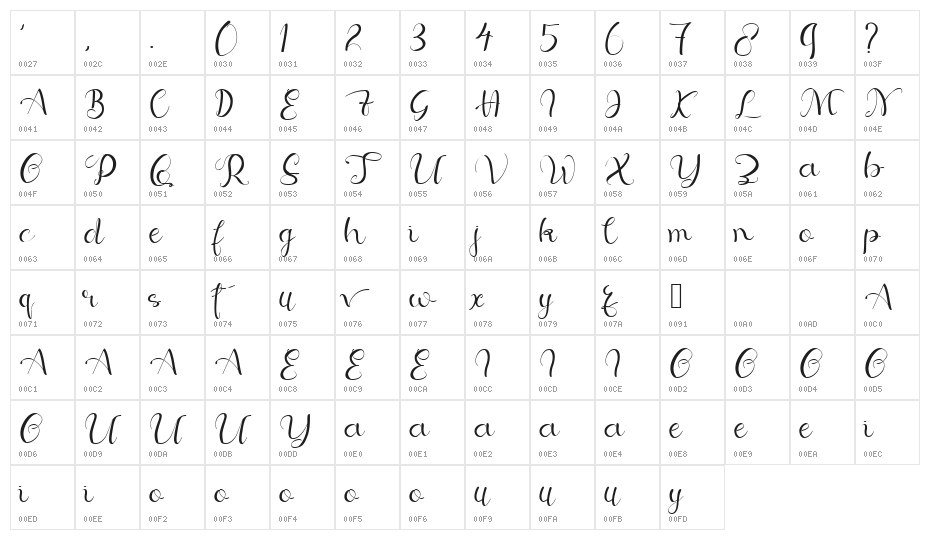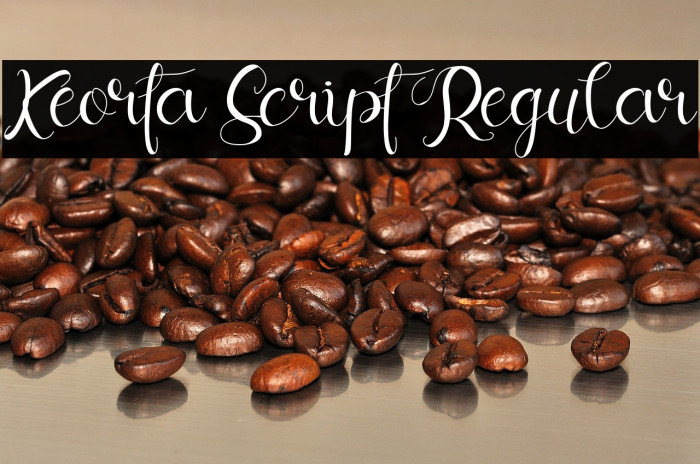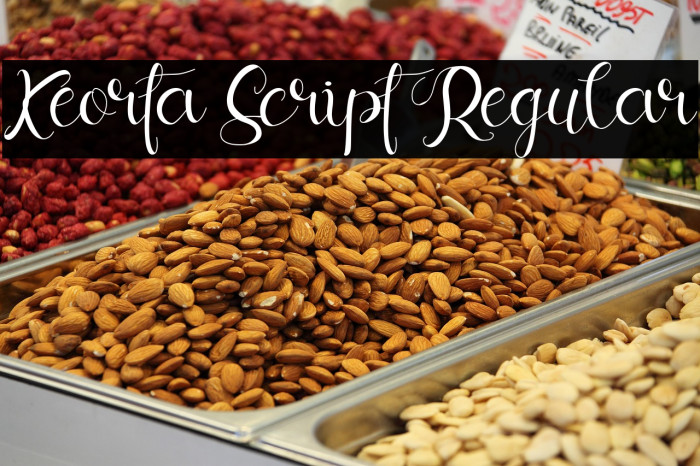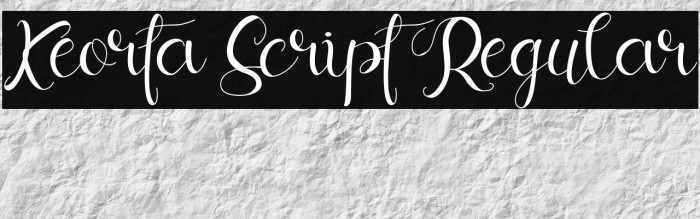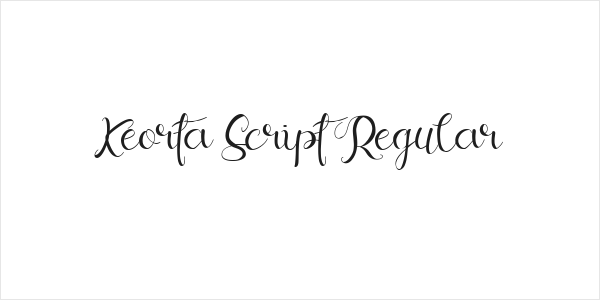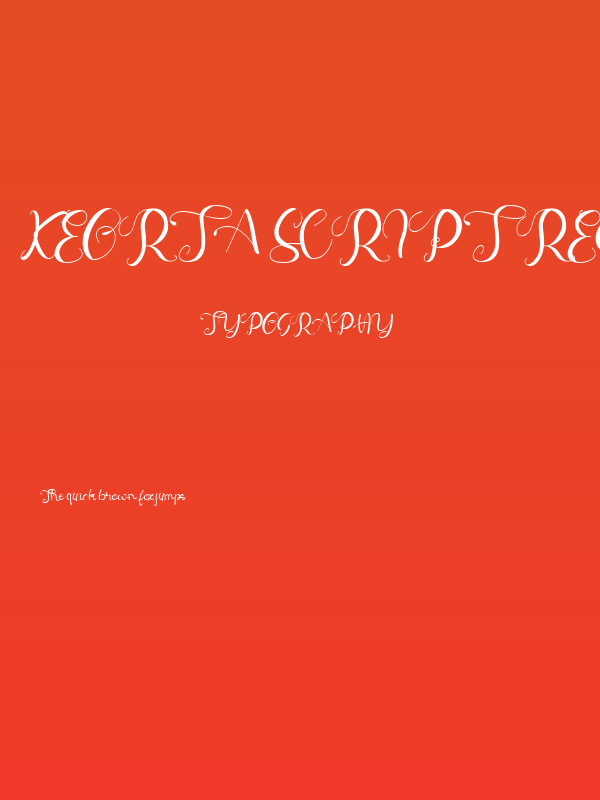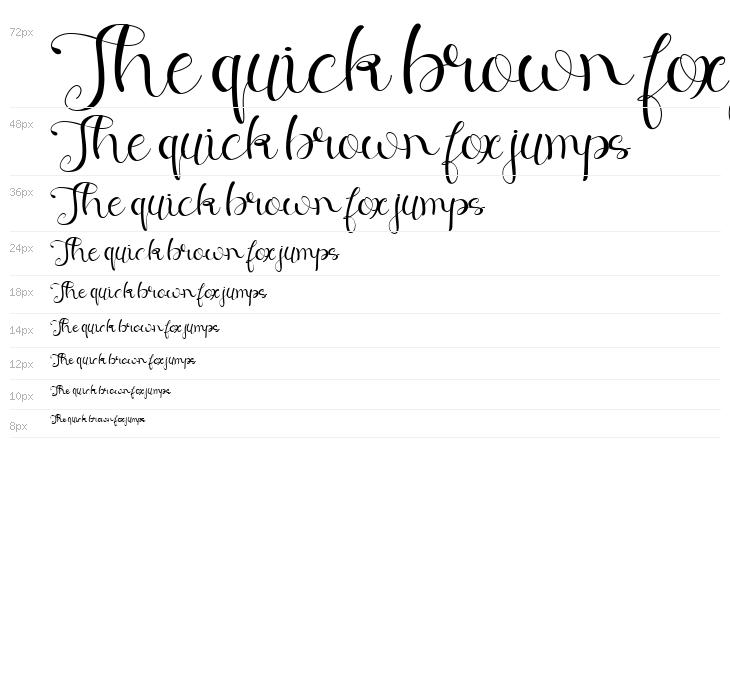
Keorta Script Regular Font
Keorta Script Regular Description
This elegant script font features a flowing, cursive style with intricate swashes and flourishes. The uppercase letters are particularly ornate, with extended loops and curves that give a sense of movement and grace. The lowercase letters maintain a consistent style, with smooth, connected strokes that enhance readability while retaining a decorative flair. The numerals are equally stylish, with a harmonious balance between form and function. This font exudes sophistication and is ideal for projects that require a touch of elegance and class.
| Overall Style | Elegant, Decorative |
| Use Case | Headlines, Invitations, Branding |
| Proposed Projects | Ideal for wedding invitations, elegant branding, luxury product packaging, and decorative headings. |